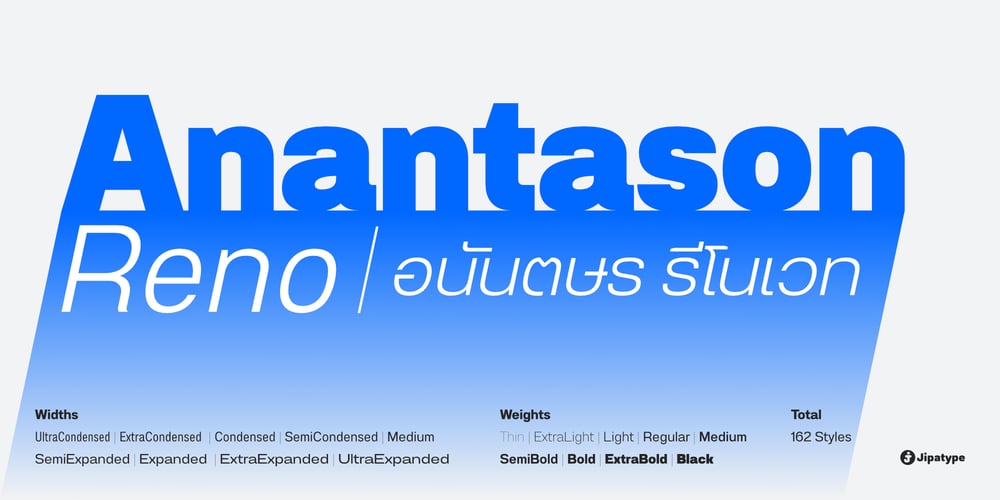
Anantason Reno Font Family was designed by Anupap Jaichumnan and published by Jipatype. Anantason Reno contains 162 styles and family package options. Anantason Reno is a versatile sans-serif typeface that offers a range of 162 styles, spanning from thin to black in weight and ultra-condensed to ultra-expanded in width. Its adaptability makes it well-suited for a variety of purposes.